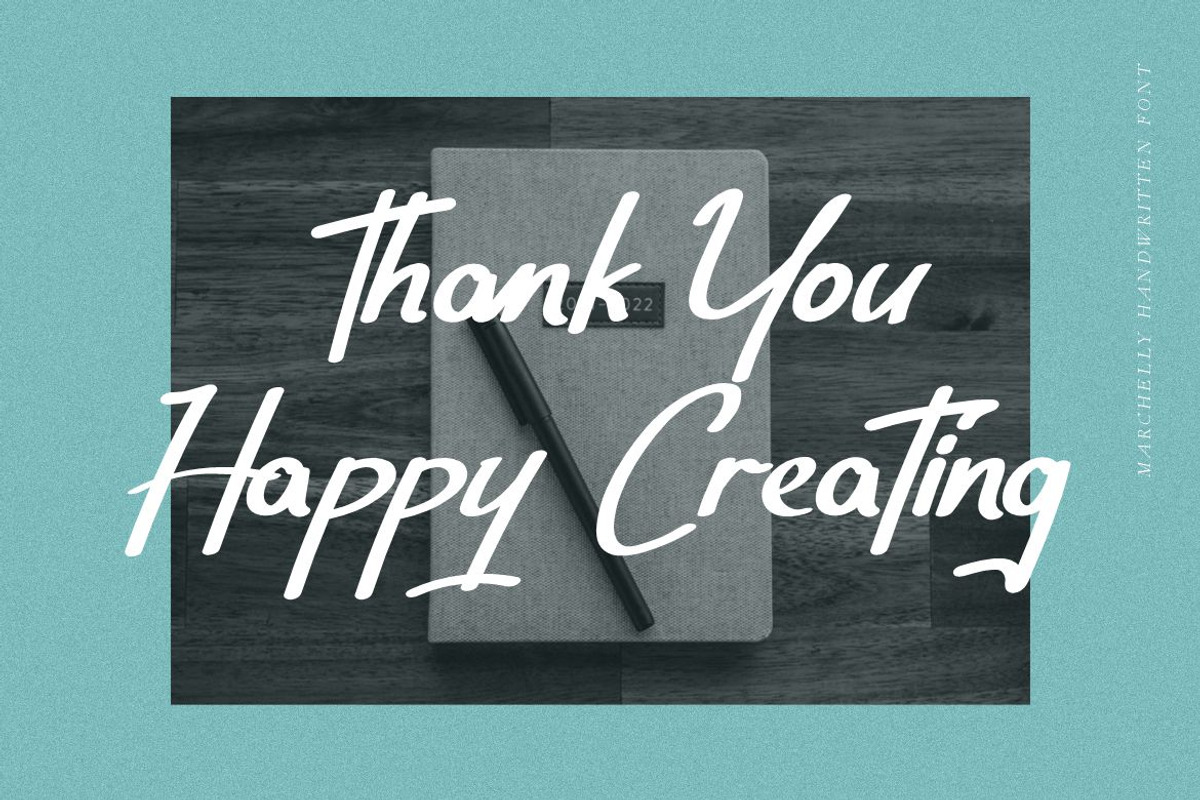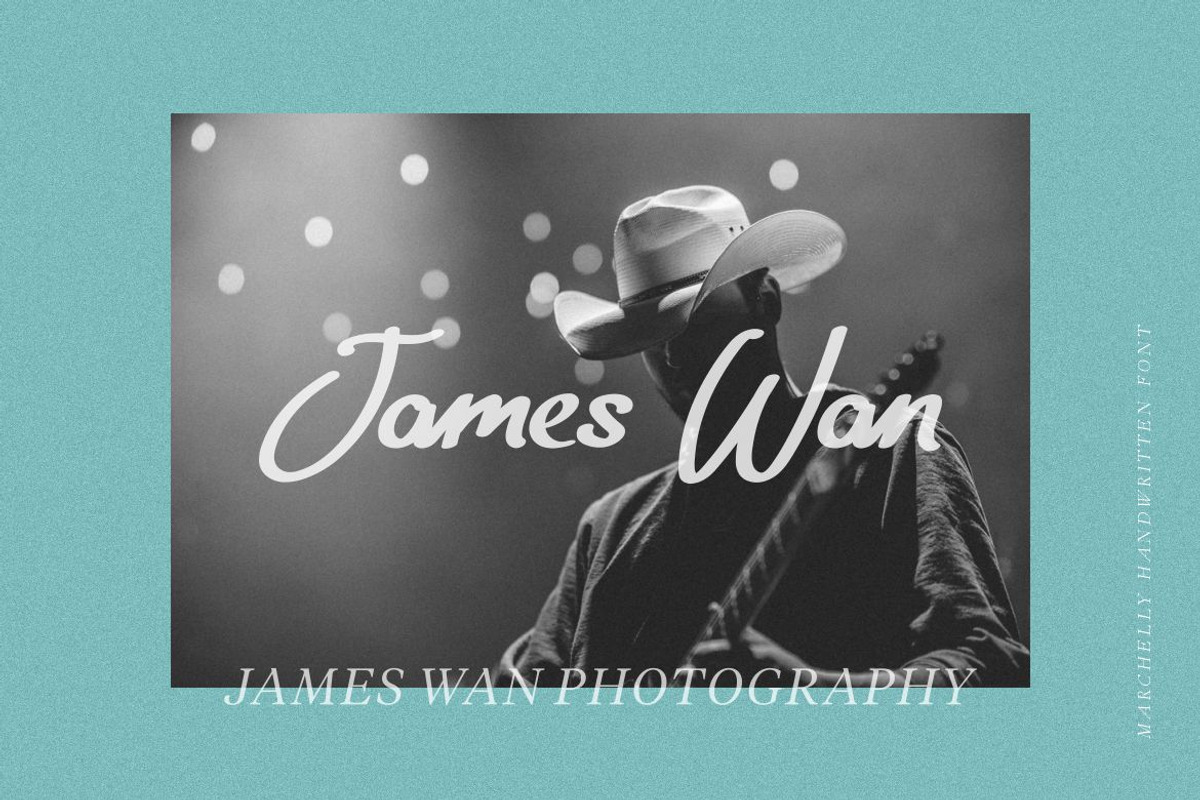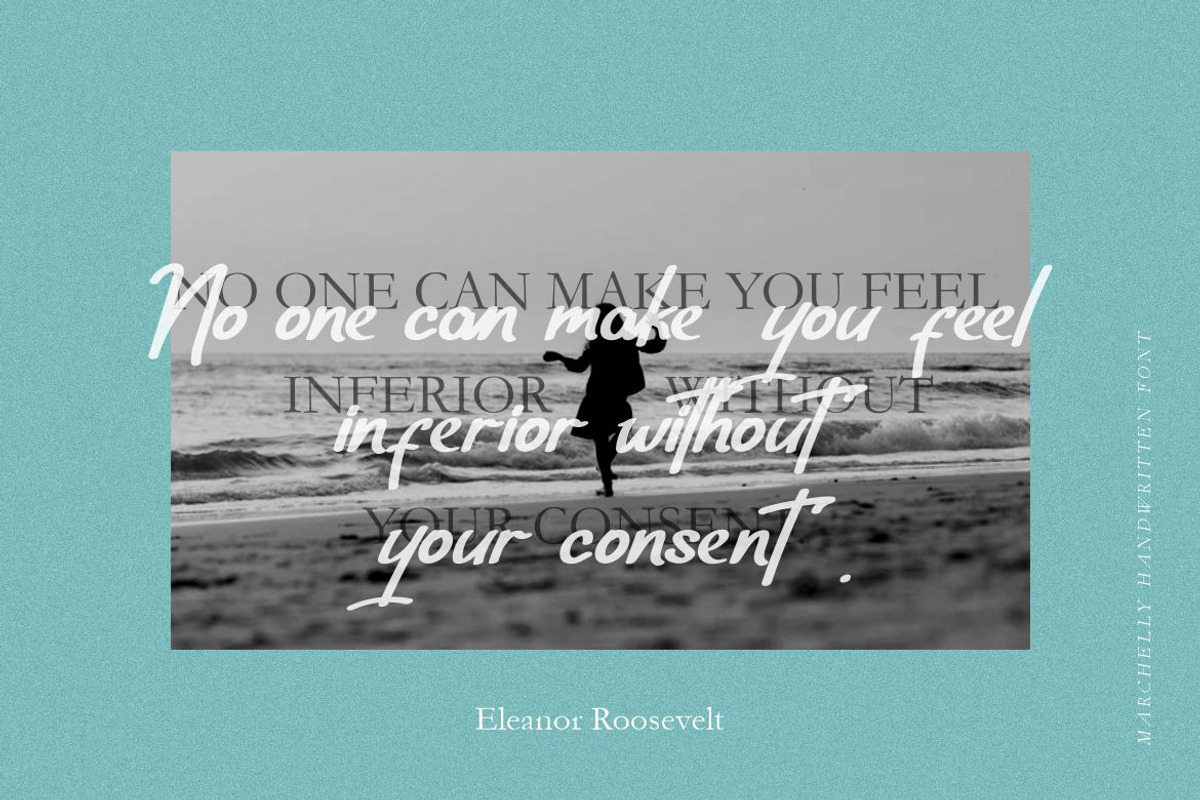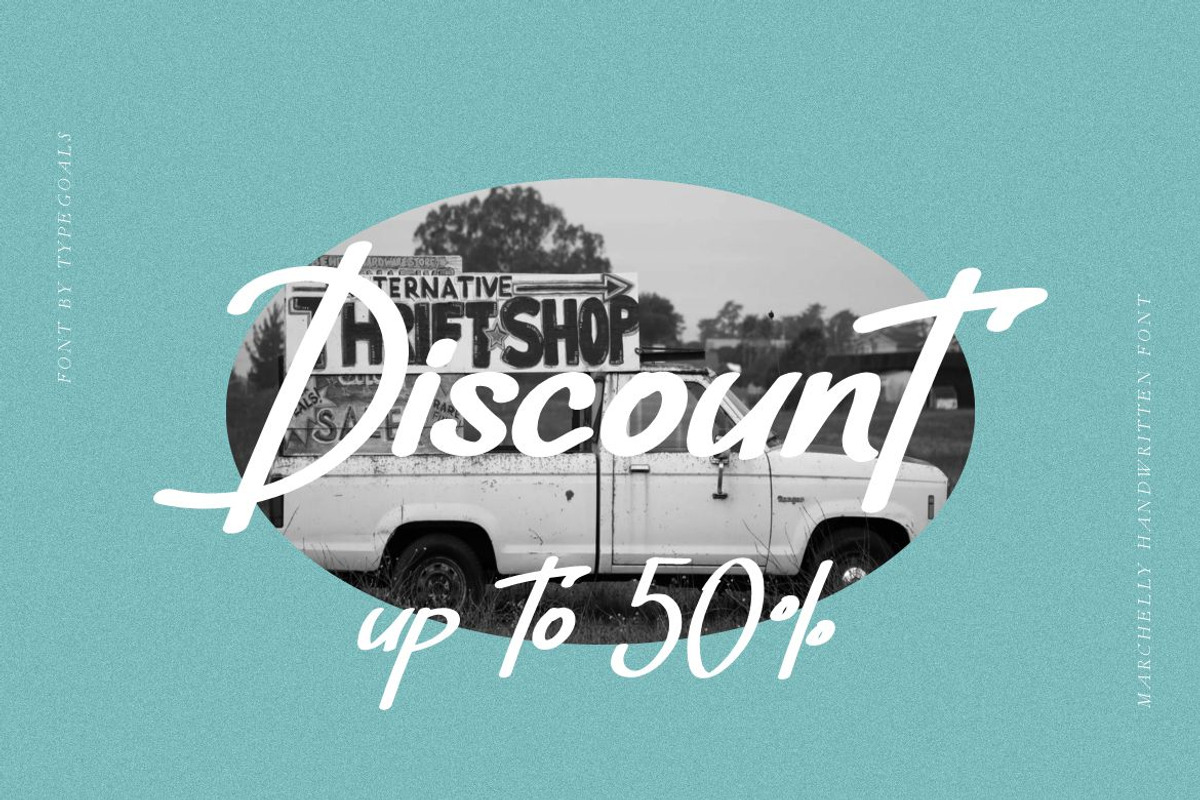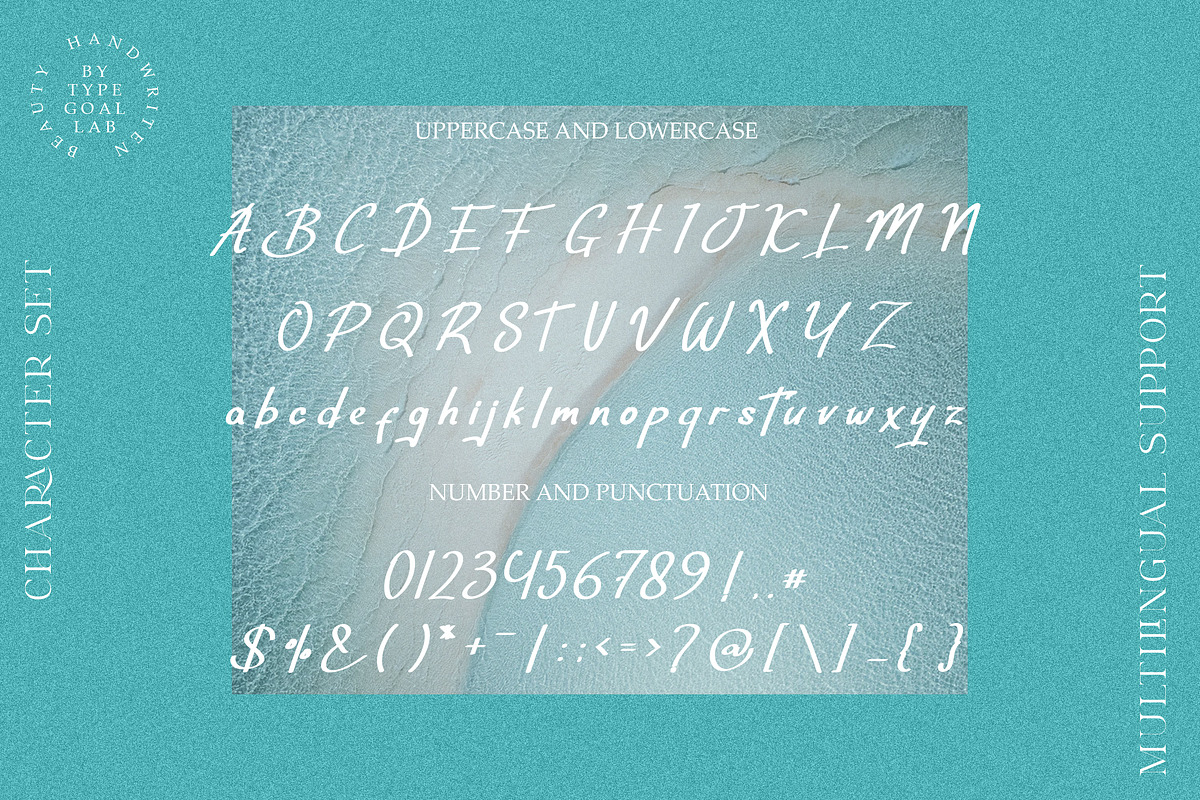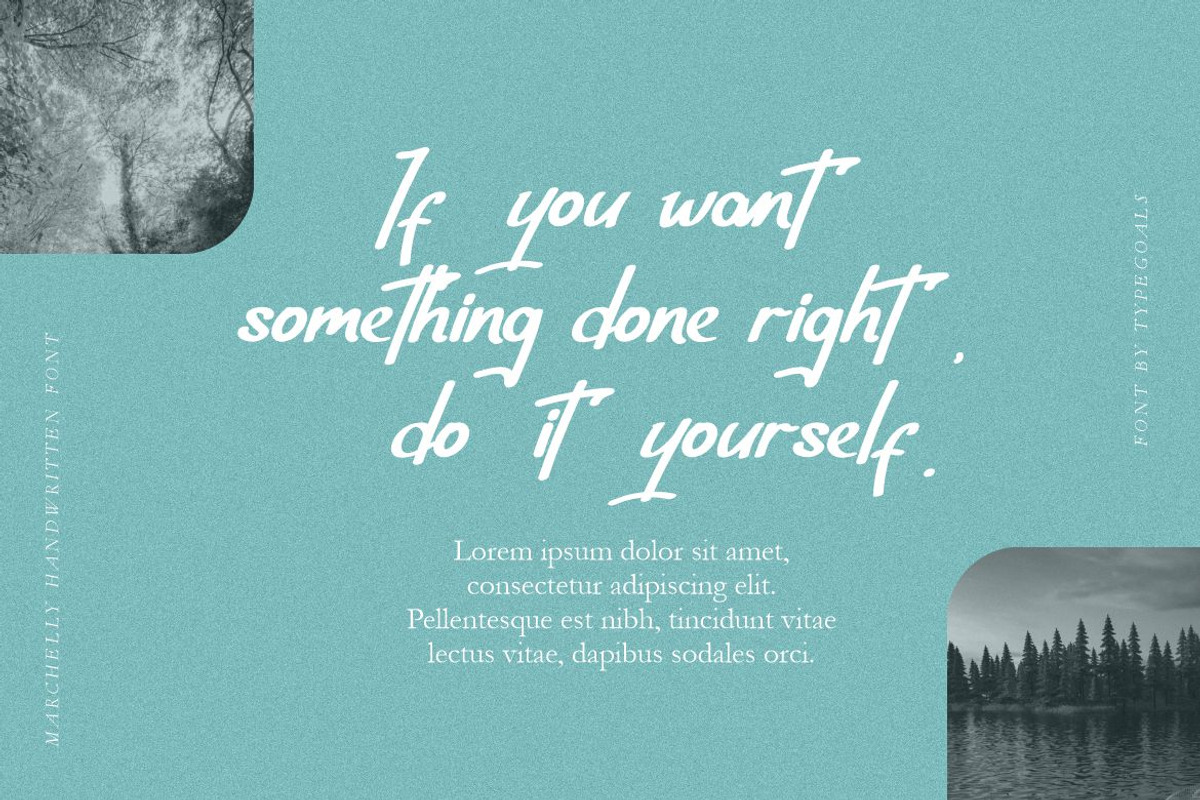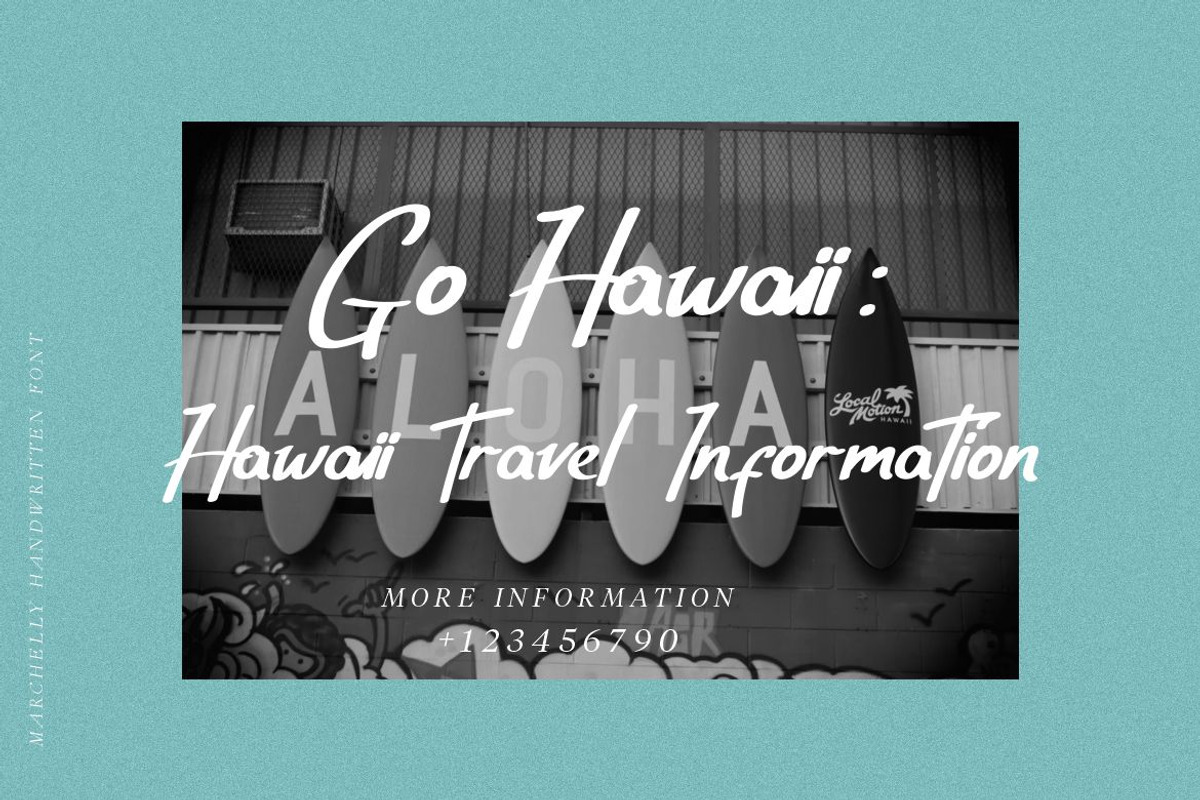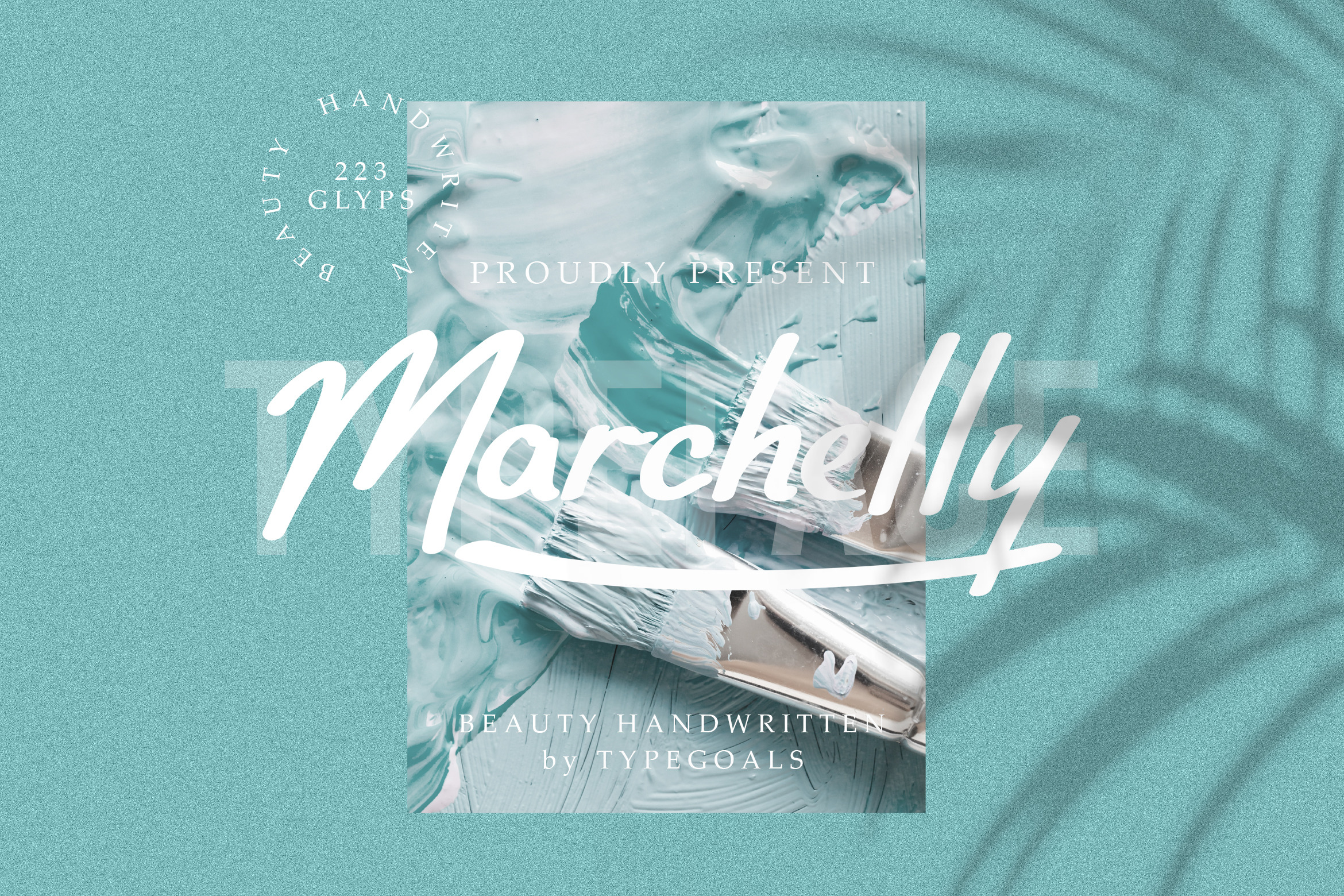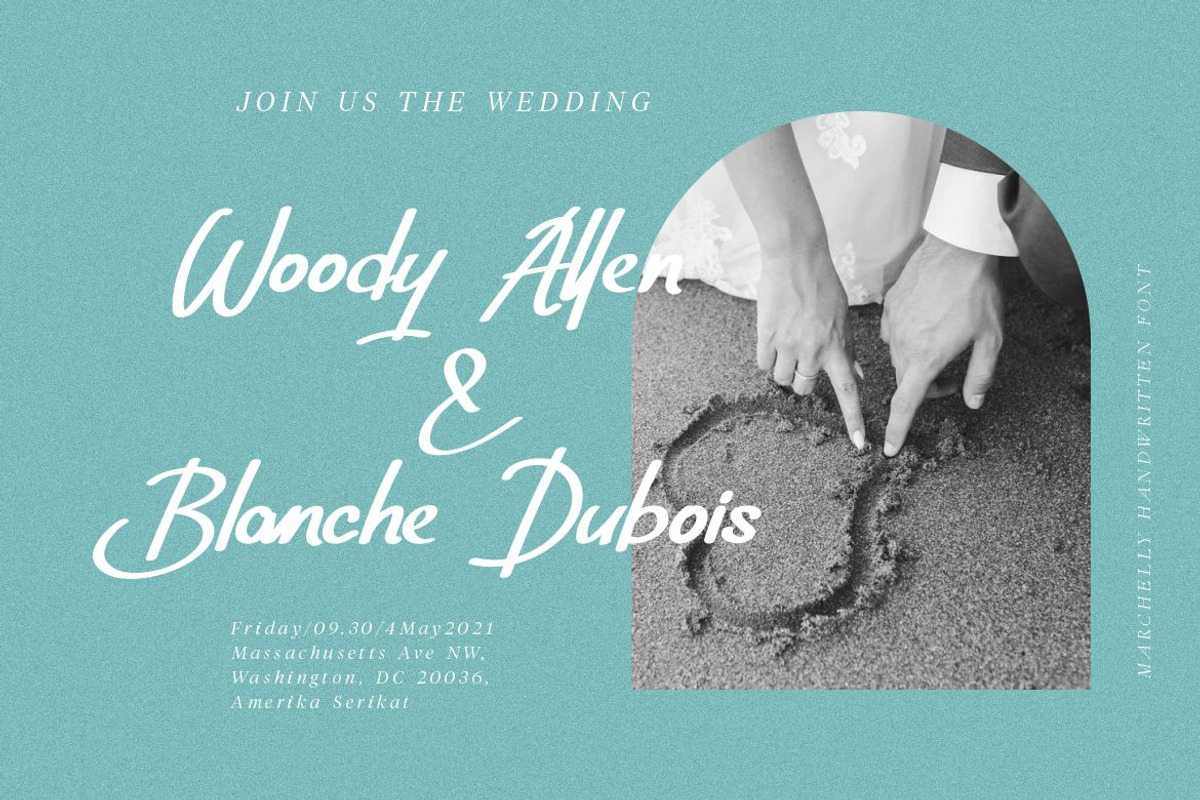
Marchelly Font
Proudly present Marchelly Font, created by Typegoals, A san serif modern and classic typeface that has own unique style & modern look. This typeface is perfect for an elegant & luxury logo, book or movie title design, fashion brand, magazine, clothes, lettering, quotes, and so much more.